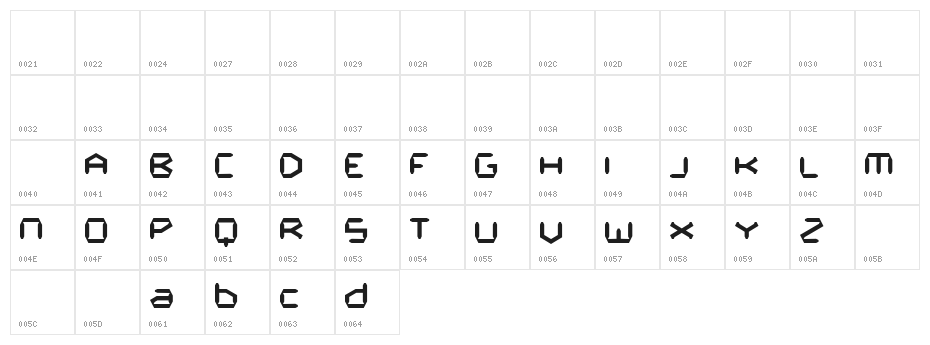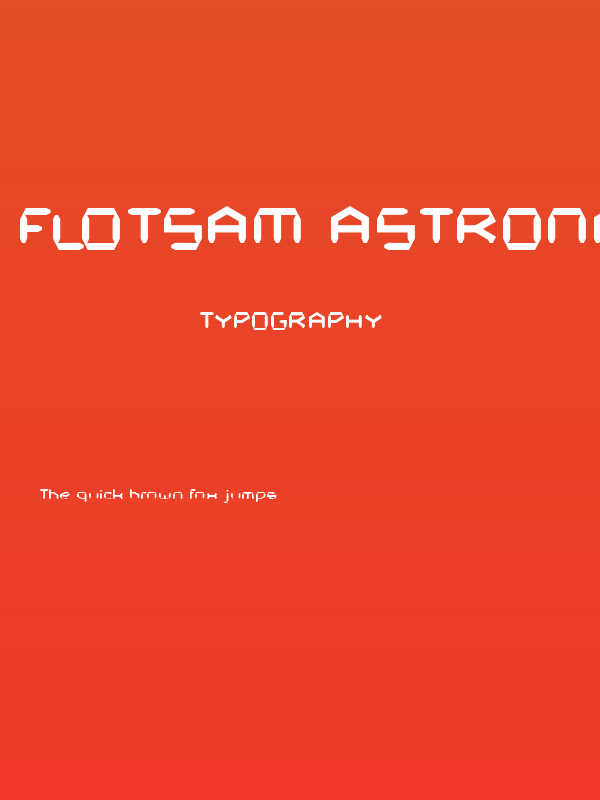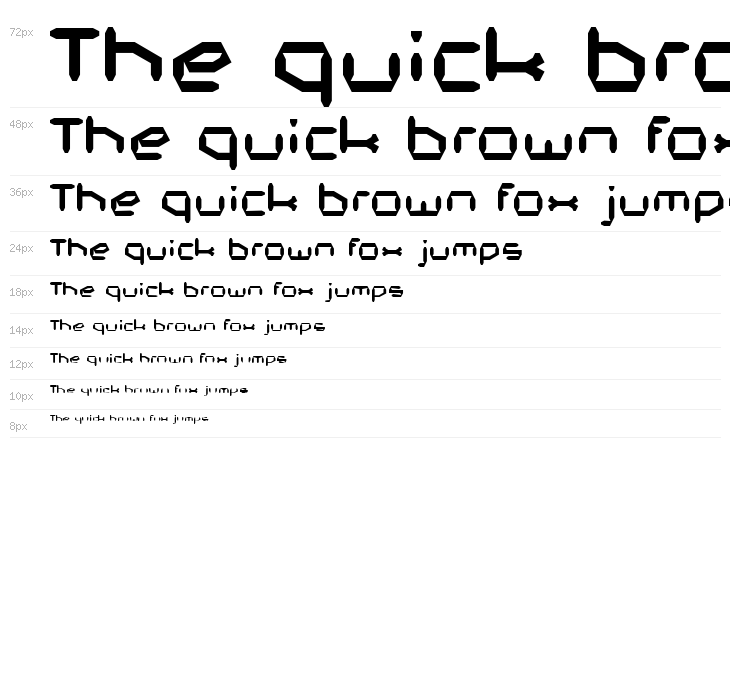
Flotsam Astronaut Font
Flotsam Astronaut Description
This font features a futuristic and geometric design, characterized by its angular shapes and bold lines. The uppercase and lowercase letters maintain a consistent style, with sharp edges and a uniform thickness throughout. The numerals and special characters follow the same design principles, ensuring a cohesive appearance. The font's unique style is reminiscent of digital or sci-fi themes, making it stand out in modern and creative projects. Its distinct appearance is both eye-catching and readable, suitable for various design applications.
| Proposed Projects | Ideal for sci-fi themed posters, video game interfaces, tech branding, and modern digital art. |